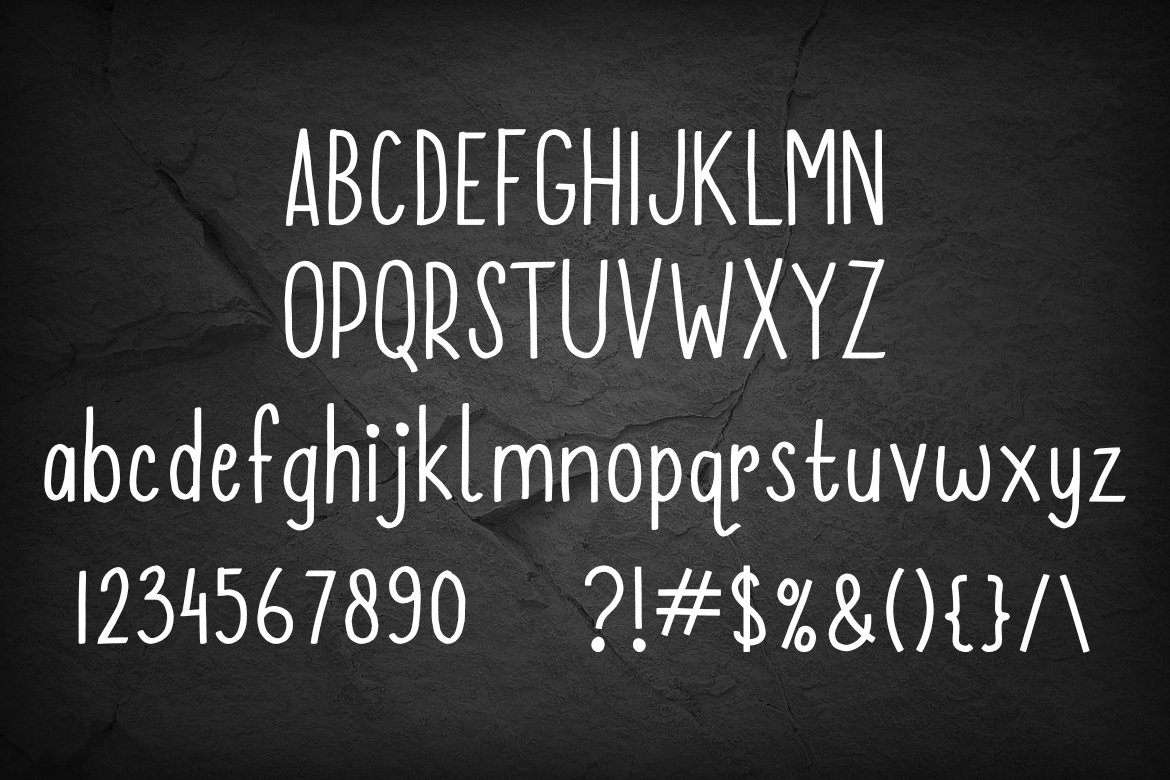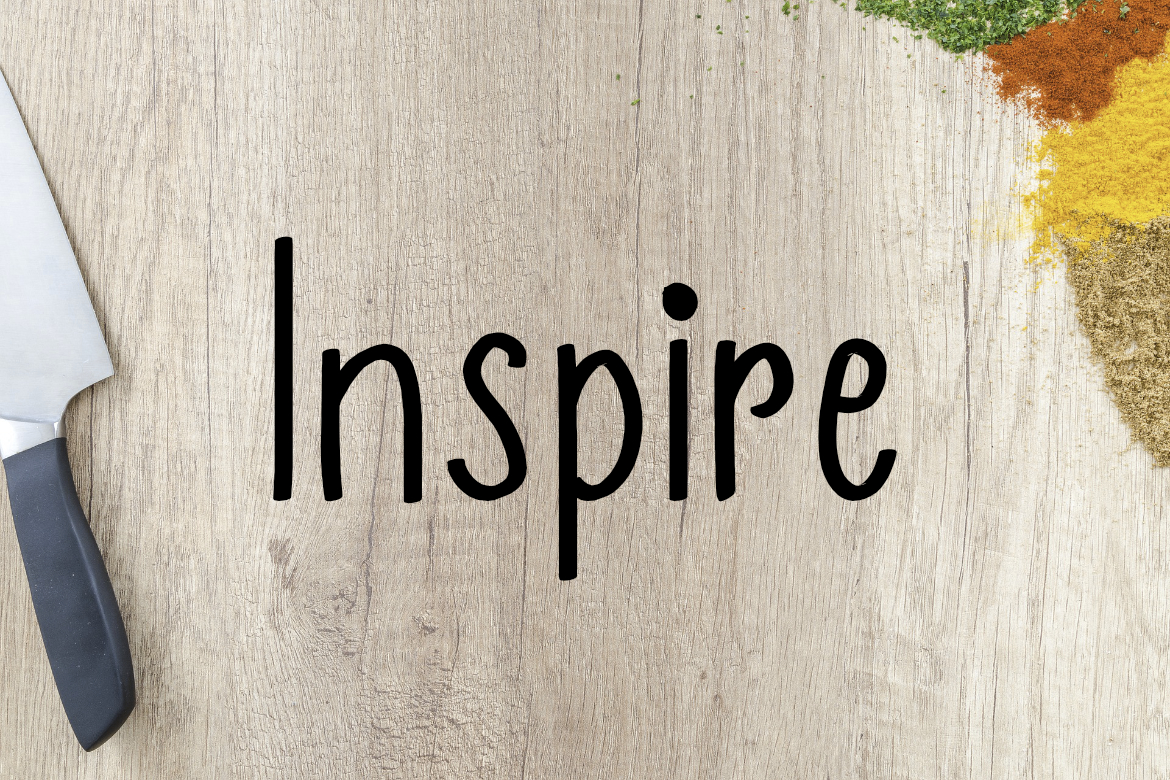
Discover the Charm of Dear Mellow Font: A Warm and Inviting Sans Serif
In the world of typography, fonts play a crucial role in conveying the tone and personality of a design. For designers and crafters looking for a font that exudes warmth and friendliness, Dear Mellow is an excellent choice. This fun and simple font is perfect for body text, offering a sans serif style that is not too cold or mechanical, but instead, warm and inviting.
The Characteristics of Dear Mellow Font
Dear Mellow font is a sans serif typeface that boasts a clean and minimalist aesthetic. Its simplicity makes it highly legible, even at smaller font sizes, making it ideal for use in body text. The font’s curves are smooth and rounded, giving it a soft and approachable feel. This warmth is perfect for designs that require a friendly and welcoming tone, such as children’s books, educational materials, and lifestyle blogs.
What Makes Dear Mellow Stand Out
So, what sets Dear Mellow apart from other sans serif fonts? Here are a few key features:
- Warmth and Invitation: Unlike some sans serif fonts that can come across as cold or mechanical, Dear Mellow has a distinctly warm and inviting feel. This makes it perfect for designs where you want to create a sense of comfort and approachability.
- Legibility: The font’s clear and simple letterforms ensure that your text is easy to read, even for younger audiences or for people reading on smaller screens.
- Versatility: Dear Mellow is a versatile font that can be used in a variety of design contexts, from digital media like websites and social media graphics to print materials such as brochures, posters, and flyers.
- Fun and Creativity: The ‘fun’ element in Dear Mellow comes from its slightly quirky and playful edge, which can add a creative touch to your designs without compromising on professionalism.
How to Use Dear Mellow Font Effectively
To make the most of Dear Mellow font, consider the following tips:
- Pair it with Complementary Fonts: For headings, consider pairing Dear Mellow with a more decorative or bold font to create contrast and visual interest.
- Adjust Font Sizes Wisely: Use larger font sizes for headings and titles to create hierarchy and make your content more digestible.
- Experiment with Colors: While Dear Mellow works well in black or dark colors, don’t be afraid to experiment with brighter colors to match your brand’s personality or design theme.
Who Can Benefit from Dear Mellow Font?
Dear Mellow font is a versatile typeface that can benefit a wide range of designers and crafters, including:
- Graphic Designers: Looking for a friendly and approachable font for client projects.
- Web Designers: Seeking a sans serif font that improves readability on digital platforms.
- Artists and Crafters: Creating handmade products, such as journals, cards, or posters, that require a personal touch.
- Educators: Developing educational materials that are engaging and easy to read.
Dear Mellow font offers a unique blend of simplicity, warmth, and friendliness, making it an excellent choice for designers and crafters looking for a versatile sans serif typeface. Its legibility, combined with its fun and inviting personality, makes it perfect for a wide range of design projects. Whether you’re creating digital content, print materials, or handmade crafts, Dear Mellow is sure to bring a touch of warmth and personality to your work.